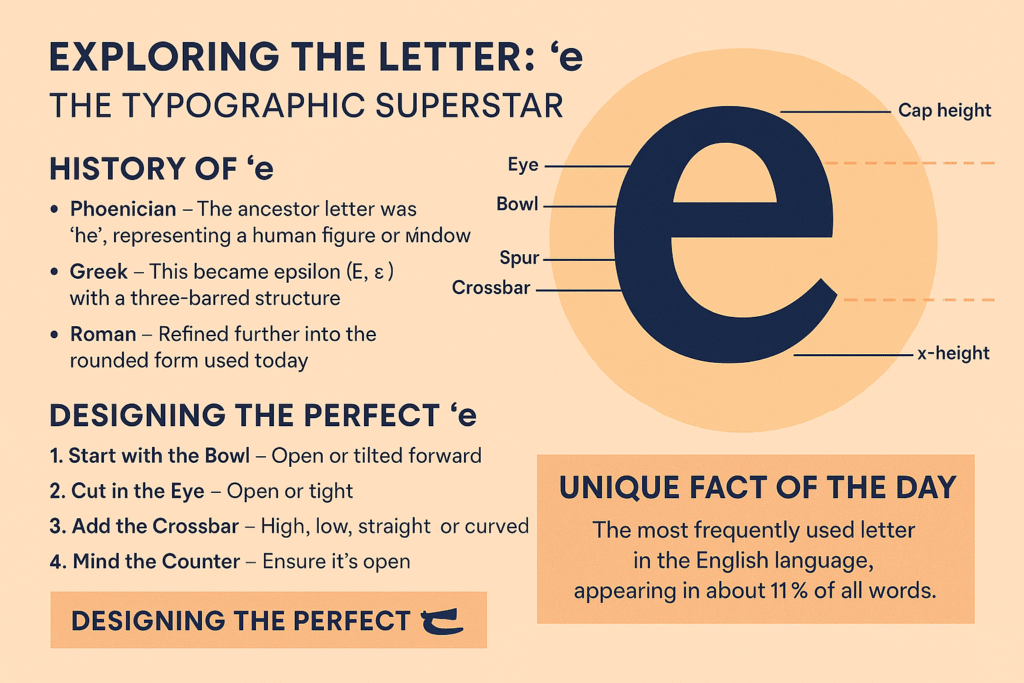
Exploring the Letter: ‘e’ — The Typographic Superstar
✨ Why ‘e’ Deserves the Spotlight
Statistically speaking, ‘e’ appears in about 11% of all English words. That’s more than any other letter — making it the Beyoncé of the alphabet (minus the Grammy snubs). Its omnipresence means one thing for type designers: if you mess up the ‘e’, everything else falls apart. No pressure.
📜 History of the Letter ‘e’
‘e’ traces its roots back to ancient Phoenicia — because, like all good characters, it’s got ancient lineage.
• Phoenician: The ancestor letter was he, symbolizing a human figure or “window.” The form was angular, almost abstract.
• Greek: This became epsilon (Ε, ε), and you can see the lineage immediately. The Greeks simplified it, giving it a three-barred structure.
• Roman: The Latin alphabet took that Greek epsilon and refined it into the familiar rounded form we use today.
Interestingly, the looped tail that we associate with modern ‘e’ forms didn’t appear until much later, thanks to Carolingian minuscule and the scribes who needed a faster, more fluid writing style.
🔬 Anatomy of ‘e’ – Small Letter, Big Deal
Ah, the lowercase ‘e’ — she may be small, but she’s a typographic power move. Let’s dissect what makes her tick:
• Eye: The small enclosed counter at the top — this is critical to legibility.
• Bowl: The rounded stroke that forms the main body.
• Spur: A tiny projection at the lower right where the bowl closes — like a little hook.
• Crossbar: The horizontal stroke that bisects the bowl. In modern sans-serifs, this is usually straight; in calligraphic or serif faces, it may be slightly angled or curved.
• Counter: The white space inside — pay attention to how open or closed it is, because this affects how readable the ‘e’ is, especially at small sizes.
🧰 Designing the Perfect ‘e’
Now we’re talking typecraft.
Designing an ‘e’ is like designing a tiny sculpture — every curve matters. Here’s how pros approach it:
1. Start With the Bowl
The bowl should feel round and balanced. In humanist fonts, it may be slightly tilted forward (dynamic!). In geometric fonts, it’s more circular and symmetrical.
2. Cut in the Eye
This is the signature look of the ‘e’. Do you want the eye open and generous? Or tight and modern? This choice defines your typeface’s personality.
3. Add the Crossbar
The crossbar must sit just right — too high and the bowl looks bloated; too low and the eye becomes squished.
4. Mind the Counter
In small text sizes, the inner space of the ‘e’ must remain open. Otherwise, it’ll clog up visually. It’s like air conditioning for your type — it needs flow.
🔍 Styles & Their ‘e’ Personalities
• Geometric Sans (Futura): The bowl is a perfect circle; the eye is small and precise. Think clean, efficient, modernist.
• Humanist Sans (Gill Sans, Frutiger): A gentle tilt to the bowl gives the ‘e’ warmth and rhythm. The eye is more open.
• Serif Fonts (Garamond, Baskerville): Often feature a slightly curved crossbar and an open bowl. The spur may be delicate, the stress angled.
• Modern Serifs (Bodoni, Didot): High contrast between thick and thin strokes — the crossbar becomes a razor-sharp slash.
🎨 Fun Variations in Display Fonts
When designers play with ‘e’, all bets are off. Some funky styles include:
• No crossbar at all — just a swirling loop.
• A reversed spiral, so the bowl starts inside and spirals out.
• A straight horizontal line and a semicircle — ultra-minimalist.
Display fonts love exaggerating the eye or tilting the bowl for drama. It’s like red carpet fashion — not always practical, but damn, it’s cool.
🤓 Unique Fact of the Day
In 2001, a man named George Raymond of San Francisco legally changed his name to “Mr. e” — pronounced “mystery”. He claimed the letter ‘e’ represented both enlightenment and the eternal enigma of language. That’s either brilliant… or very committed branding.
Also fun: In early computing and typewriter design, characters were limited — but ‘e’ was still never left out. It’s the MVP even in tight rosters.
🧠 Designer’s Exercise
To test your ‘e’, typeset the word “edge” in your font. This combo gives you ‘e’, ‘d’, and ‘g’ — each a different test of curves, joints, and bowls.
Also try “eerie.” That many ‘e’s in a row will show you instantly whether your letter spacing (and shape consistency) holds up.